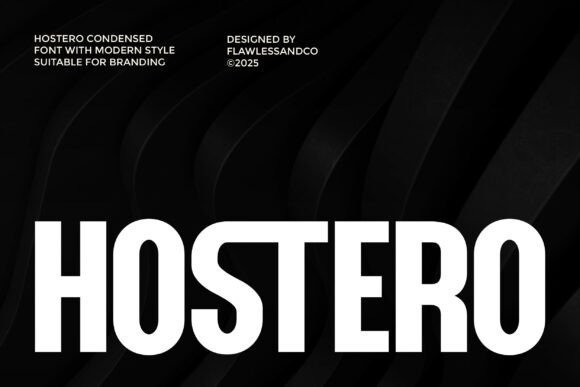
Hostero Font
Hostero Font is a sleek, condensed sans-serif designed for the fast-paced world of modern branding.It is a typeface of efficiency and “cool” confidence. With its tall x-height and tight tracking, the Hostero typeface is perfect for creating impactful headlines in limited spaces. It’s the ideal choice for tech startups, mobile app interfaces, urban fashion brands, and sports marketing, where every millimeter of screen or paper space counts. It feels “engineered” yet remains incredibly human and accessible.
The Hostero font excels in environments where readability and style must coexist. It is a fantastic choice for “wayfinding” signage, clean social media infographics, and bold website headers. Because it is a condensed typeface, the Hostero typeface allows you to use larger point sizes for your titles without overwhelming the layout. Pair it with a wide-spaced monospaced font for a “technical” look, or a lush serif for a modern-classic feel. It’s a versatile, hardworking font that belongs in every professional designer’s toolkit.